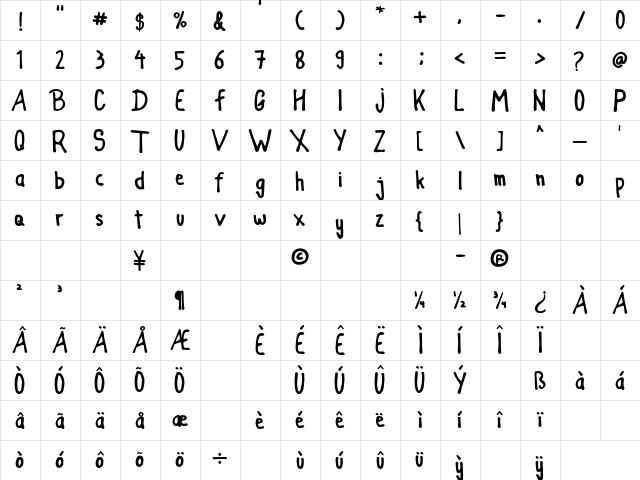
Child emperor Regular
| Designer | hindro cholis |
Design Context for Child emperor Typeface
Child emperor has an approachable, lighthearted character — its loose, expressive forms are well-suited to children's content, casual branding, and fun-first design.
Font Pairing: Pairs well with a rounded or humanist sans for body copy, maintaining the friendly tone without relying on Child emperor to carry extended reading.
Pro Tip: Avoid using Child emperor for long passages of text — it works best for headlines, labels, and short calls to action.